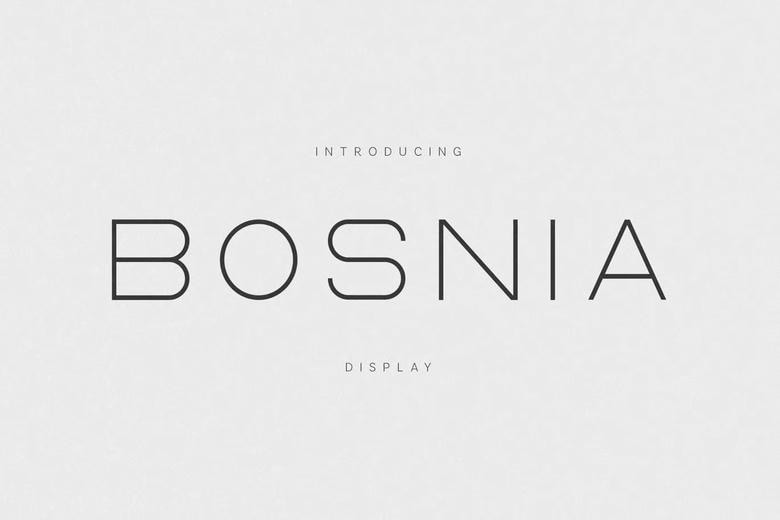
Bosnie Font
Bosnie Font is a contemporary minimalistic display typeface type designed keeping in mind a sense of clarity, balance and confidence. With contrasting geometric forms, soft curves, and consistent weight of the stroke, Bosnia presents a sophisticated visual rhythm, which is modern and at the same time eternal.
It is most effective in headlines, posters, branding, editorial layouts, logos and most of the modern user interface design due to its wide spacing and open forms. Simplicity is the priority of Bosnia and not bashful. It gives typography a breathing air but still with a very high presence and readability on print and electronic use.
Bosnia is a multifunctional display font tailored to suit multilingual layout and modern authoring systems as a style that allows designers to admire restraint, precision, and elegance.
Bosnie Display Font